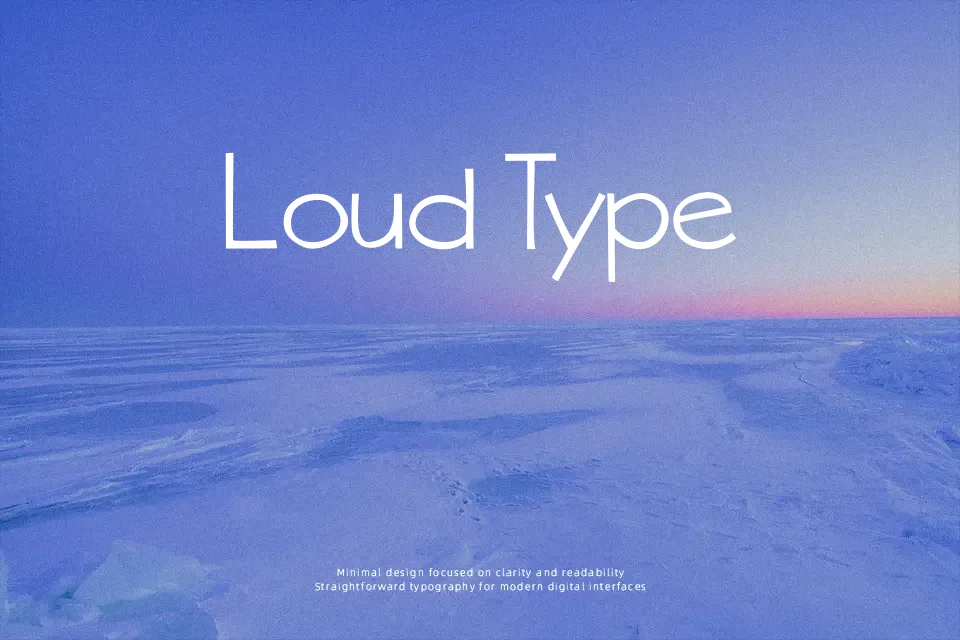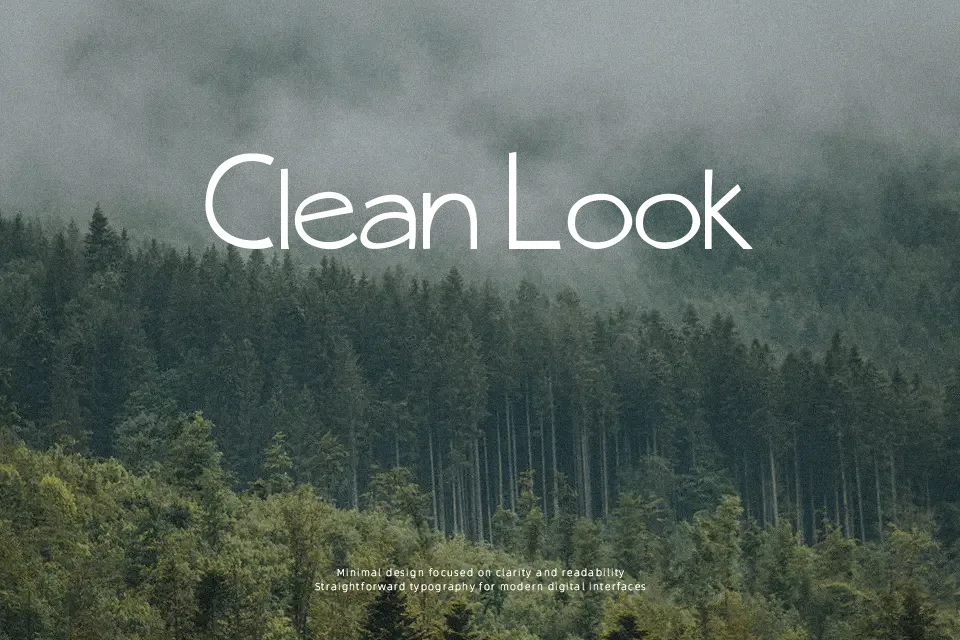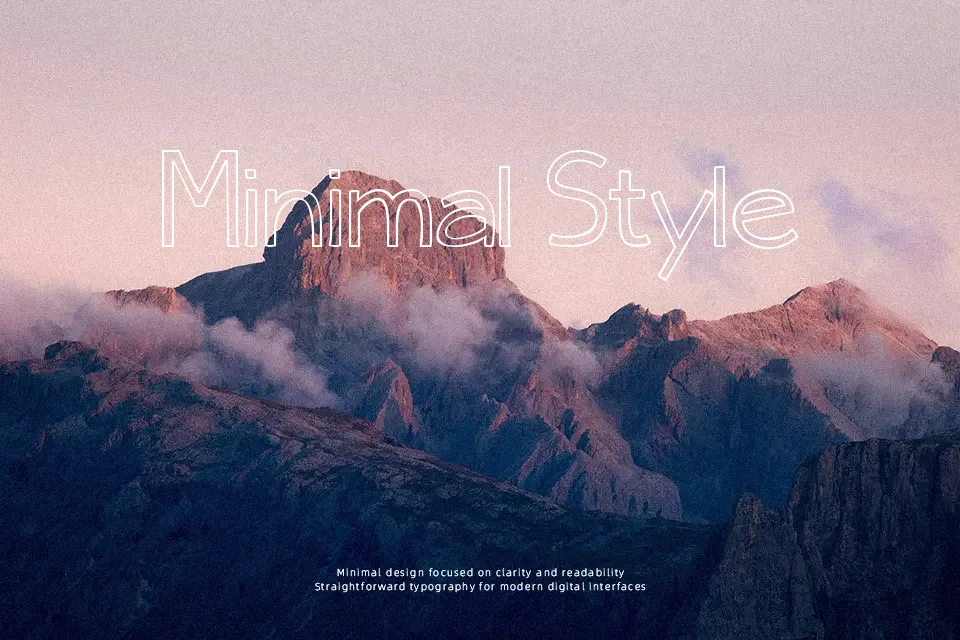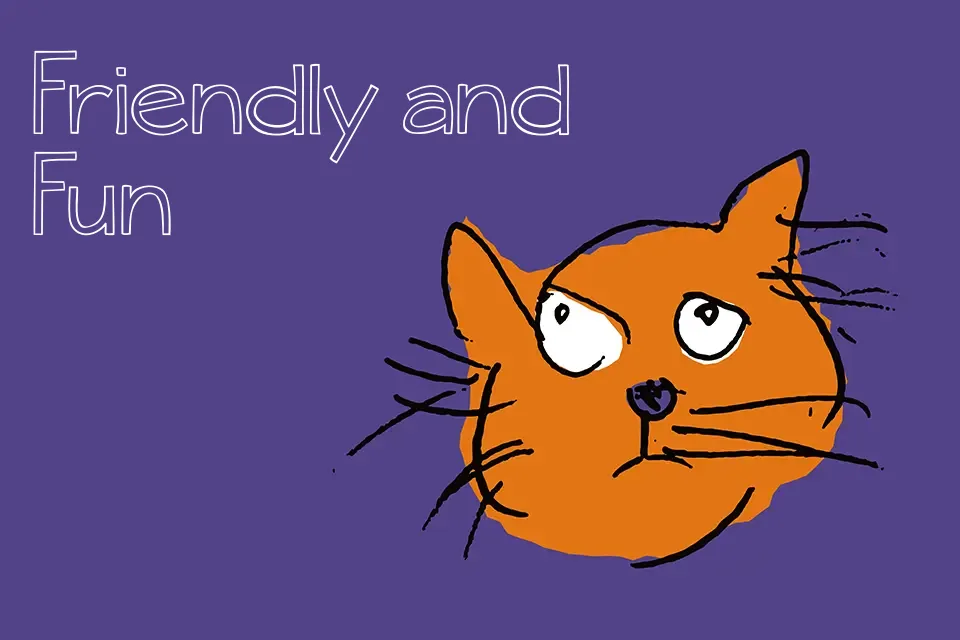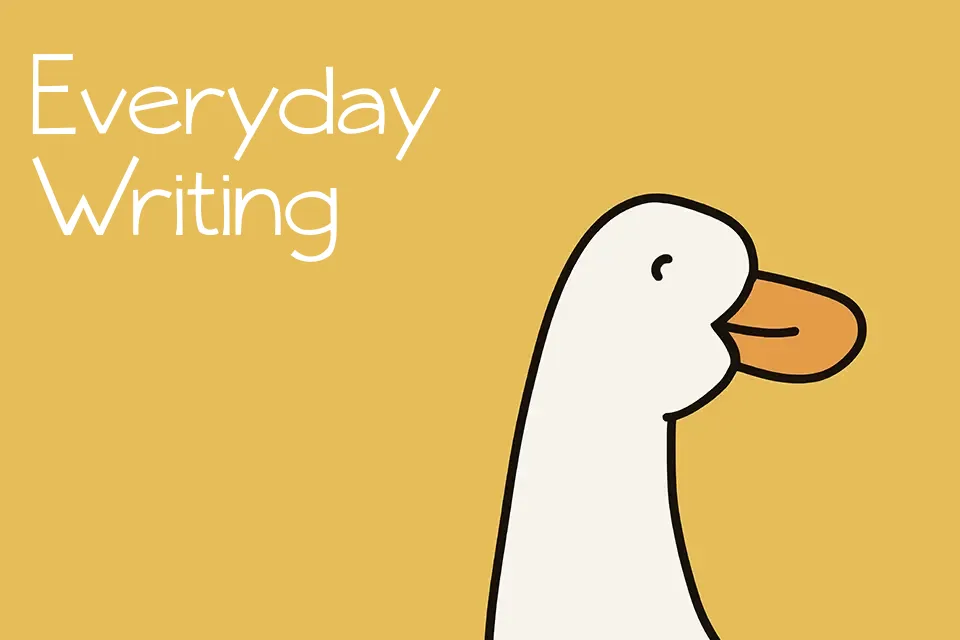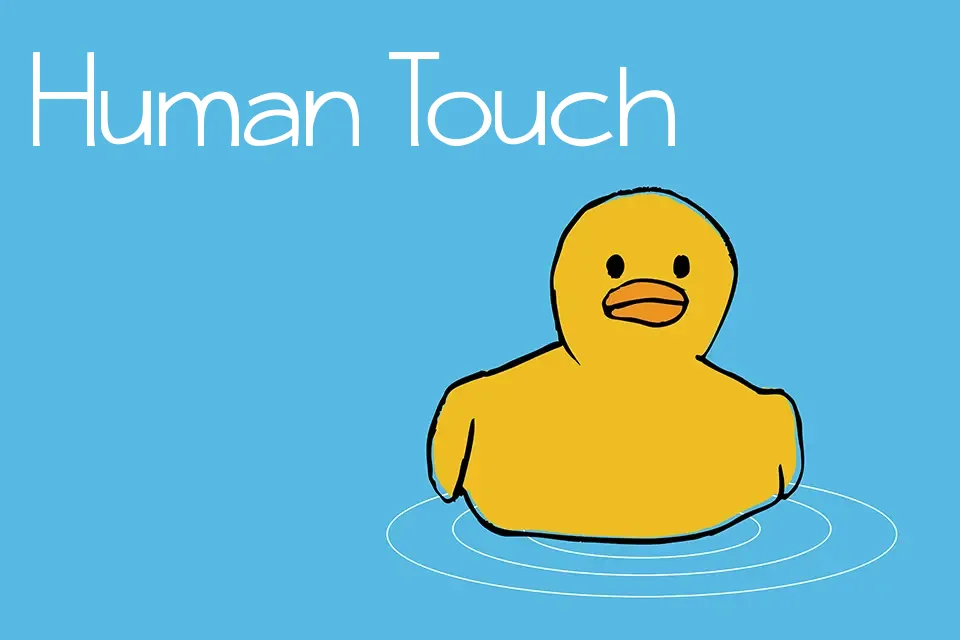
Skinny Jeans Font
Skinny Jeans Font is a charming handwritten outline display typeface created by Brittney Murphy of Brittney Murphy Design, first released in 2011. True to its name, the font features tall, narrow letterforms with a distinctly slim silhouette — evoking the casual, youthful energy of a pair of skinny jeans. Each character is drawn with a clean outline style, giving it a cartoon-like quality that feels both playful and expressive.
The font ships in two styles — Regular (outlined) and Solid — offering designers added flexibility. Its organic stroke variation and fun proportions make it well-suited for a wide range of creative applications: children’s content, social media posts, event posters, branding for boutique fashion or lifestyle brands, packaging design, and custom logos. Despite its whimsical character, the letterforms remain legible at display sizes, lending themselves naturally to headlines and titles rather than body copy.
Perfect for branding, kids, and logo, with a creative and cartoon style.